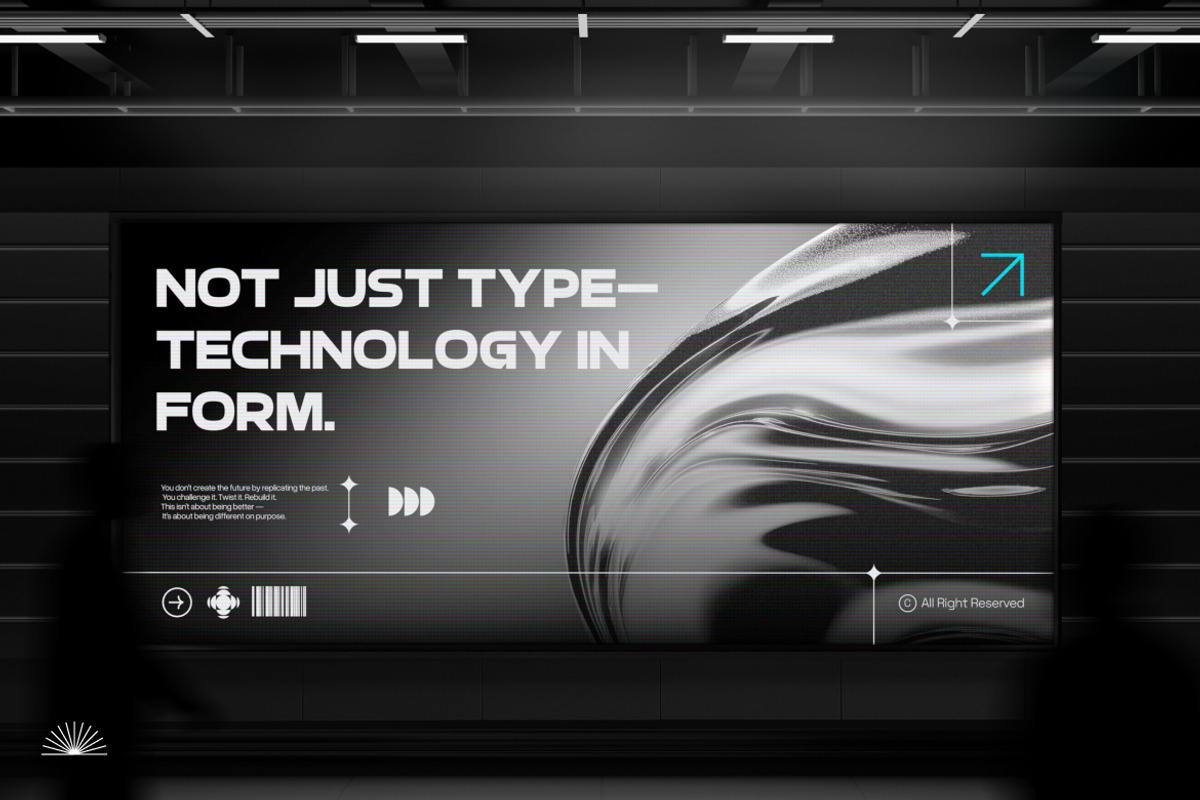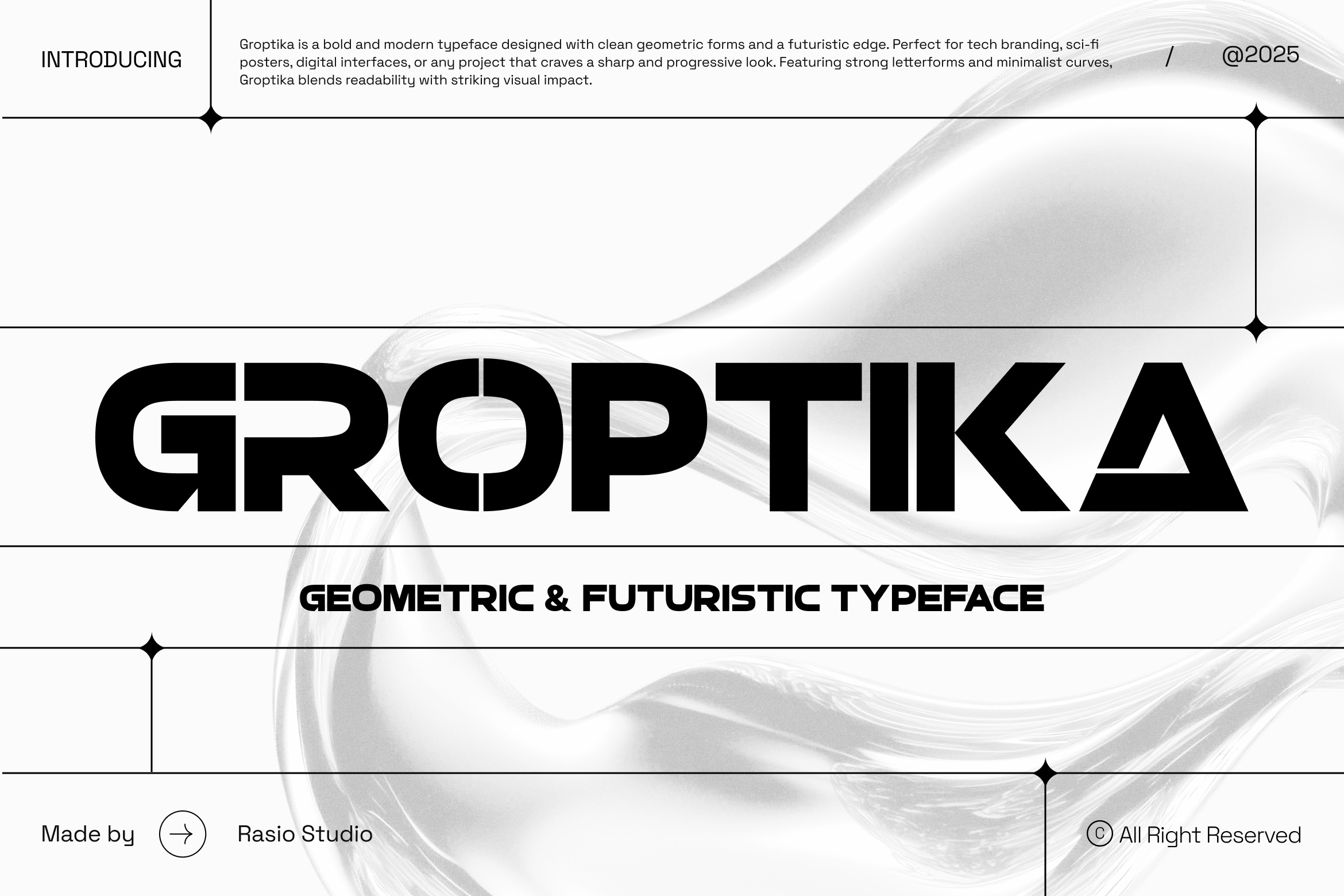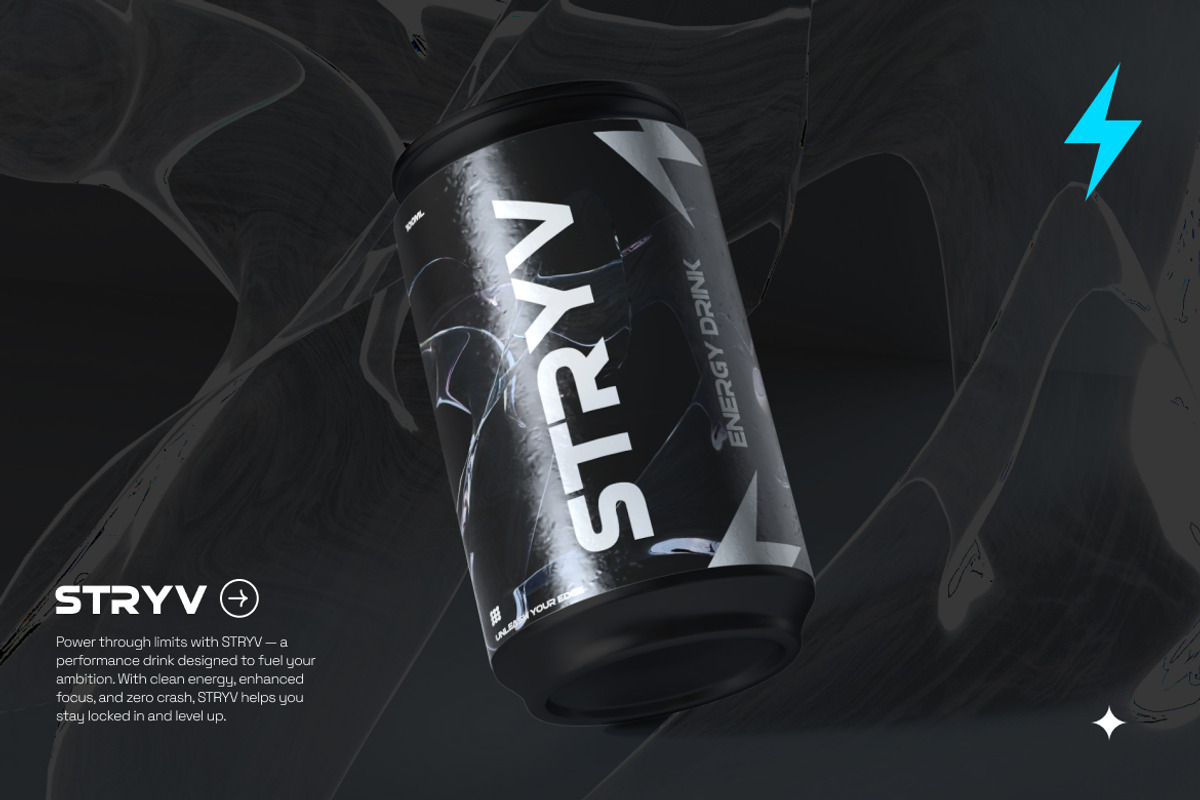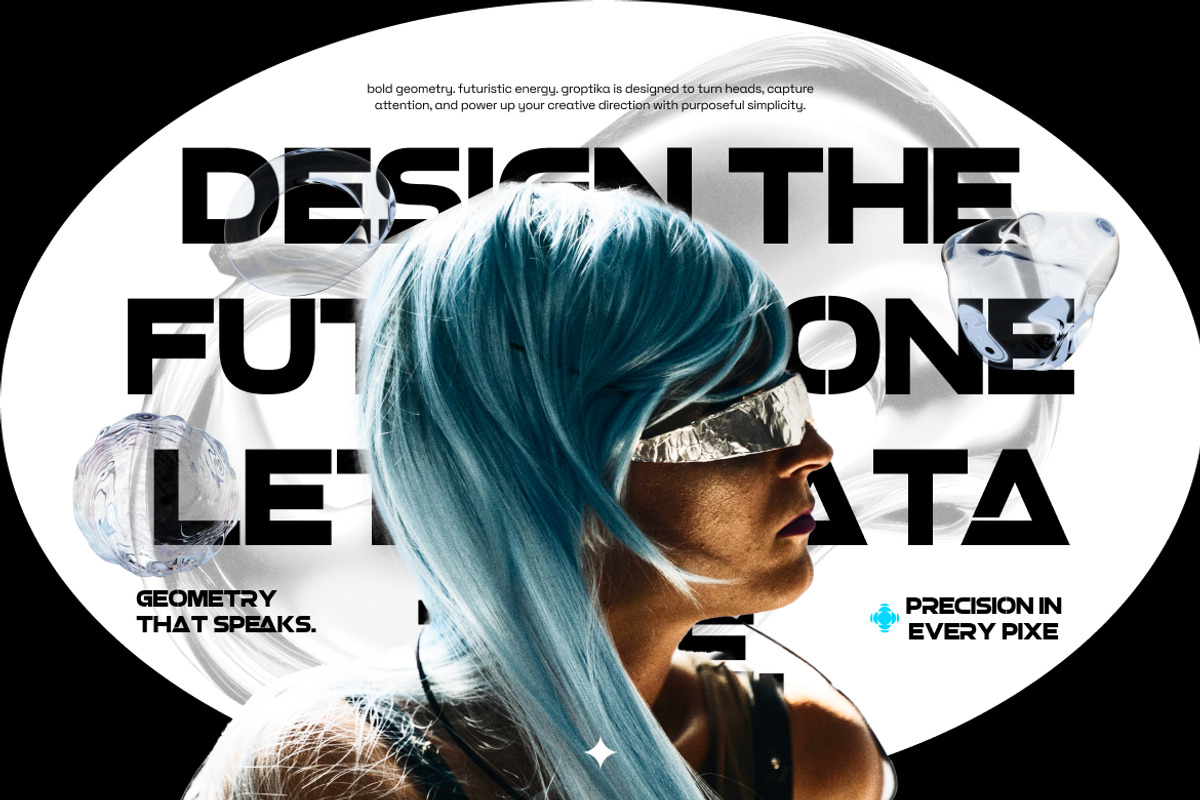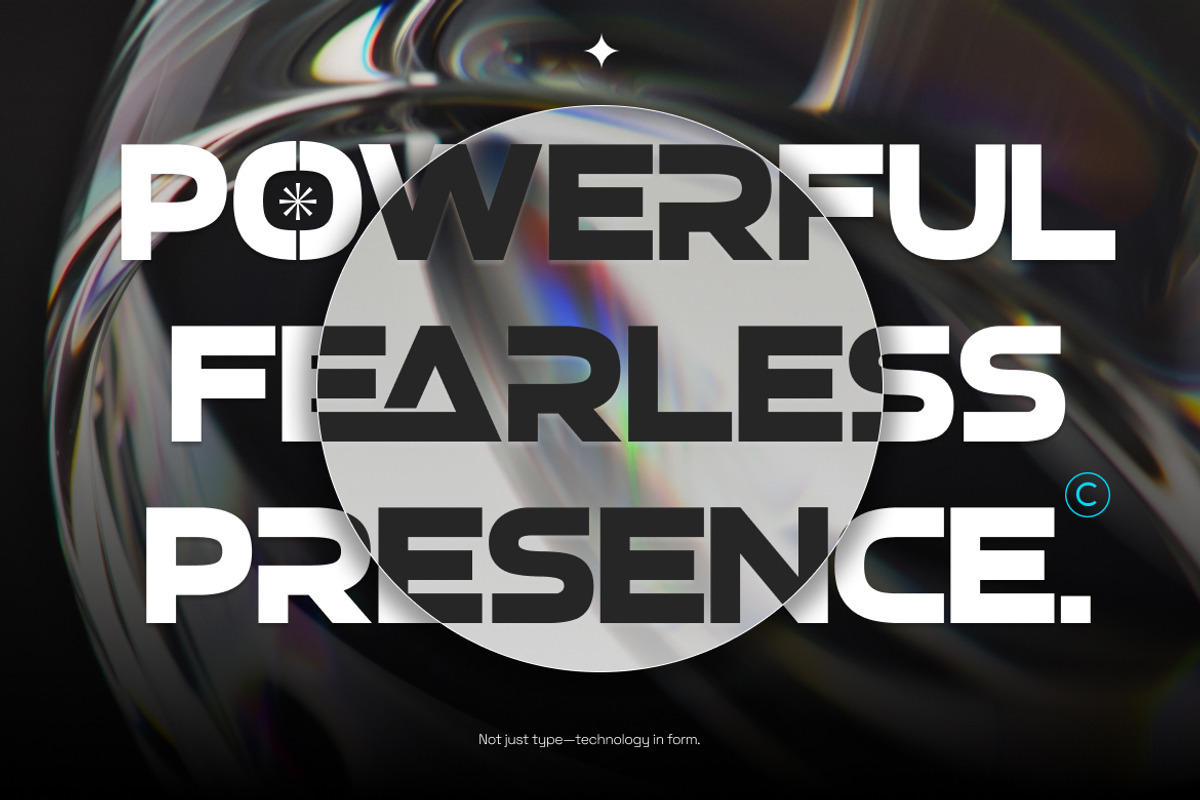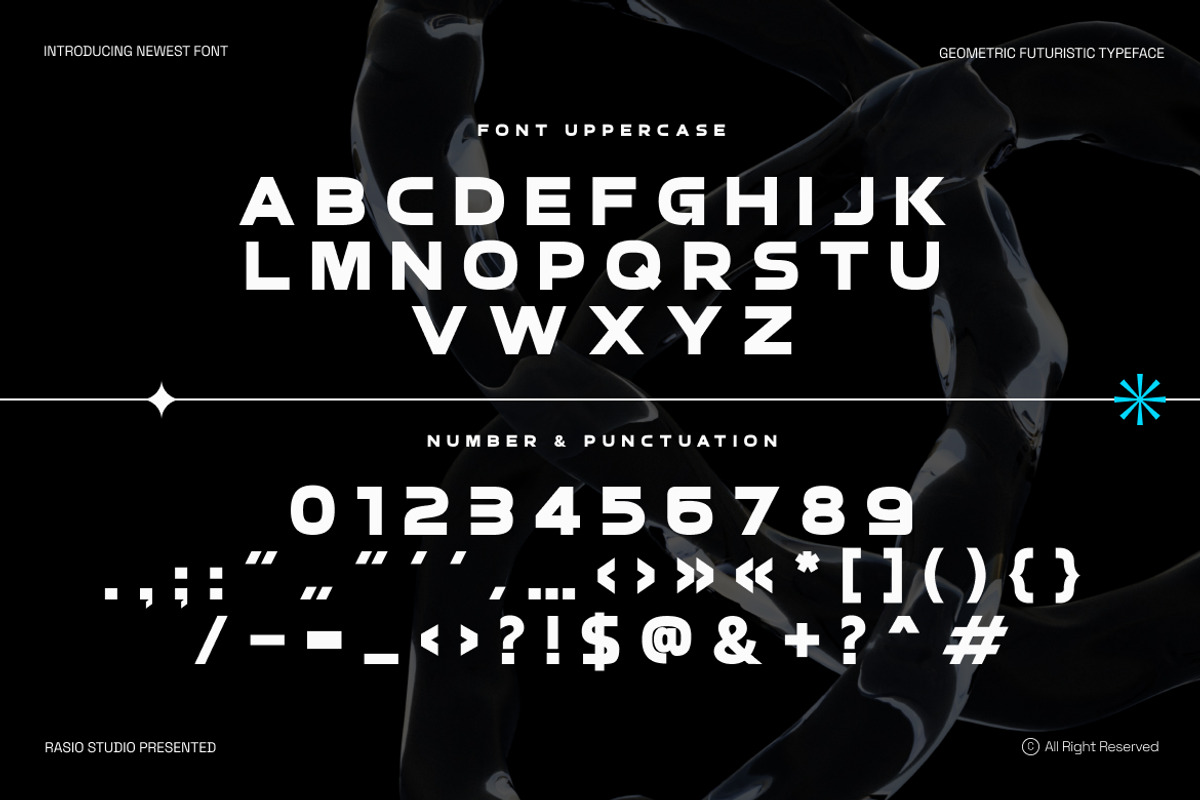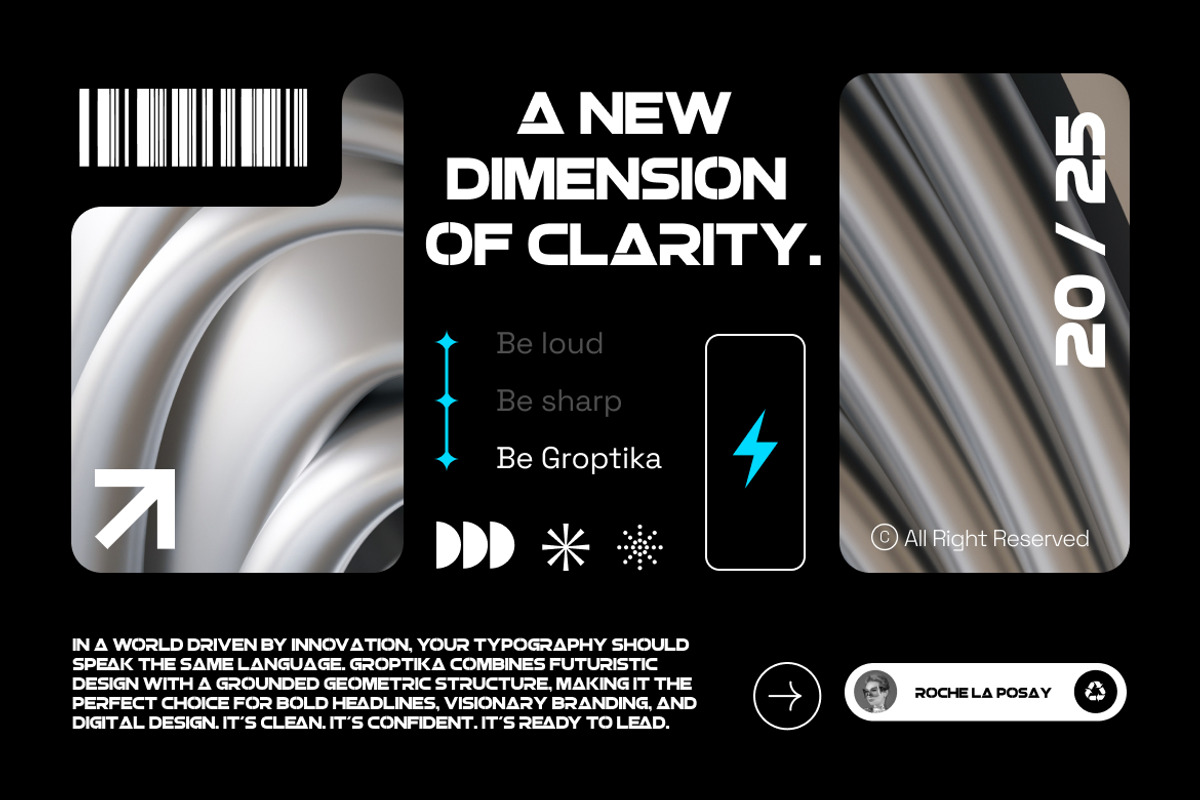
Groptika Geometric Futuristic Font
Groptika is a bold geometric futuristic typeface built with sharp angles, clean cuts, and strong structural forms that create a powerful and high-tech visual presence. The package includes uppercase, lowercase, numerals, punctuation, and multilingual characters, designed for high readability while maintaining a striking sci-fi and modern aesthetic.
Groptika brings clarity, strength, and a forward-thinking character to visual communication, making it highly relevant for technology brands, startups, esports, automotive projects, innovation campaigns, posters, packaging, interfaces, and bold editorial layouts that demand sharp, modern impact.
- Geometric futuristic construction with sharp, structured letterforms
- Clean modular shapes built from balanced circles and straight cuts
- Minimal detailing for a sleek, high-tech visual presence
- Bold weight and tight proportions for strong headline impact
- Consistent stroke width with crisp edges for maximum clarity
- Tech startups, AI products, and digital brands that need a sharp futuristic identity
- Bold headlines, posters, and hero sections with strong visual impact
- UI/UX interfaces, dashboards, and app designs with clean modern structure
- Gaming, esports, and sci-fi themed graphics or promotional materials
- Logo systems, packaging, and branding that demand precision and confidence